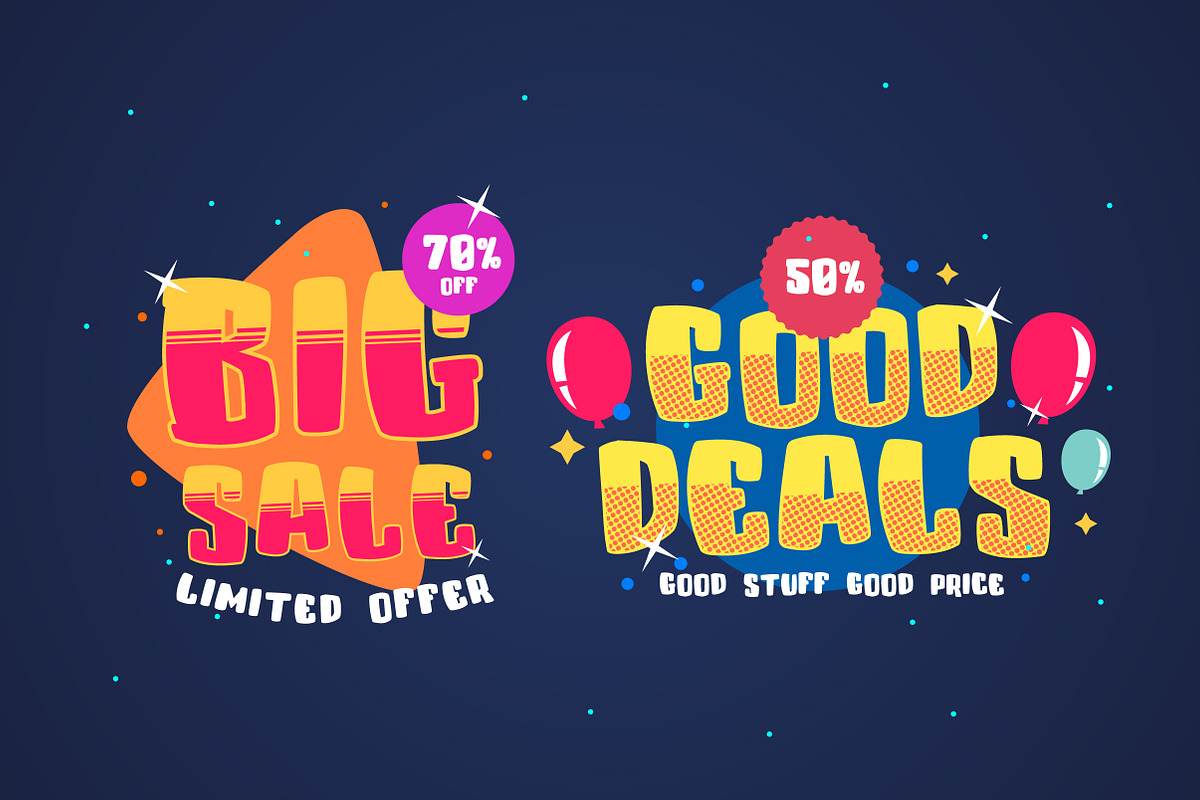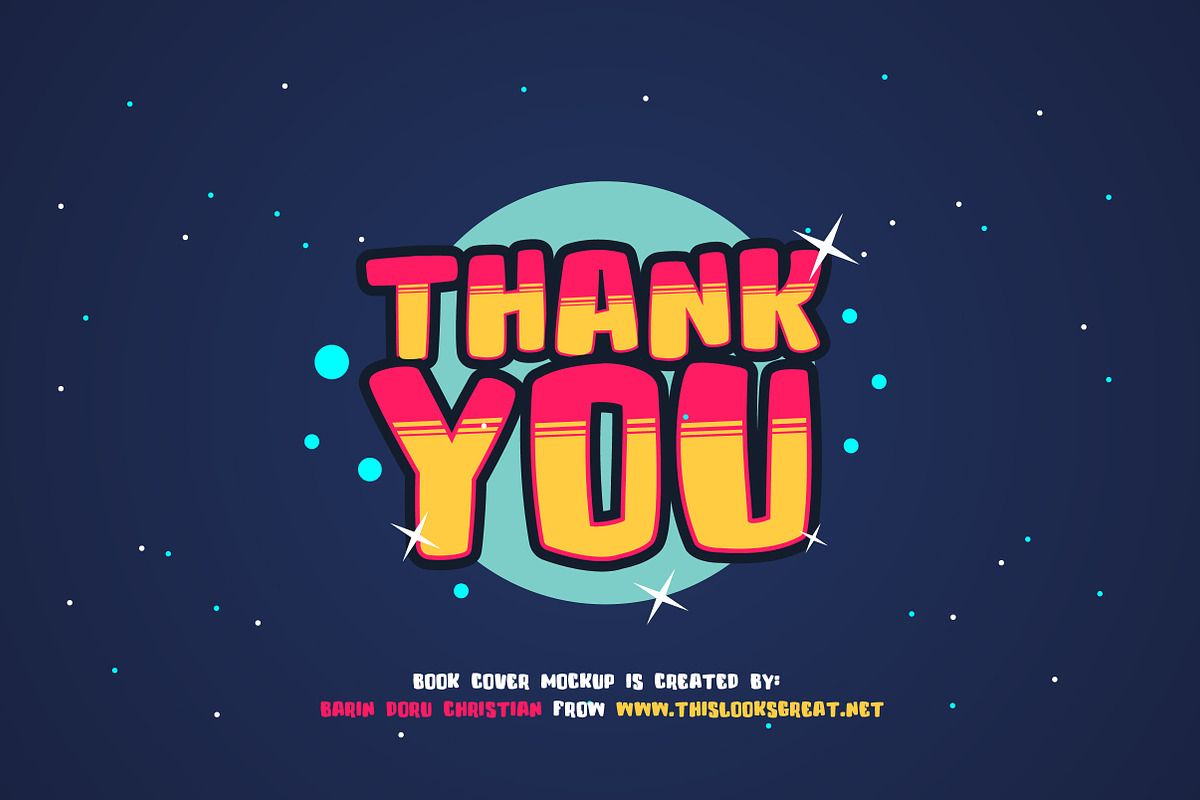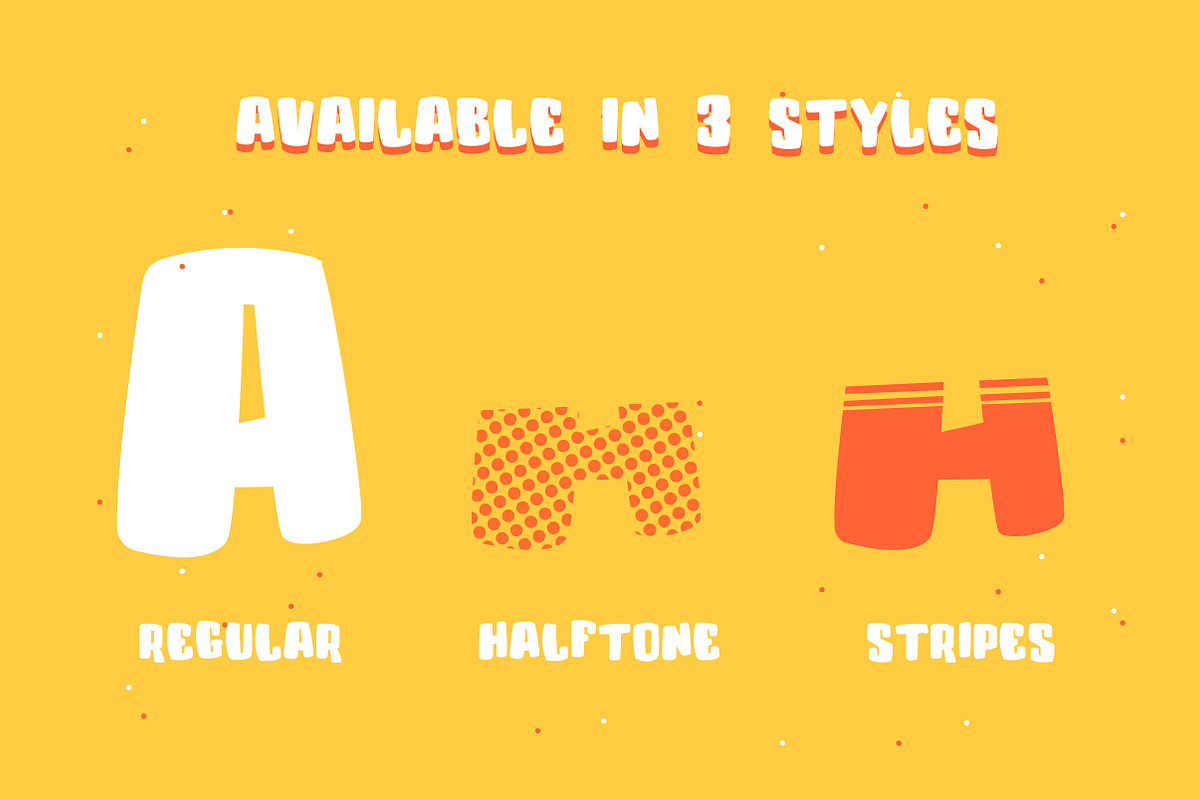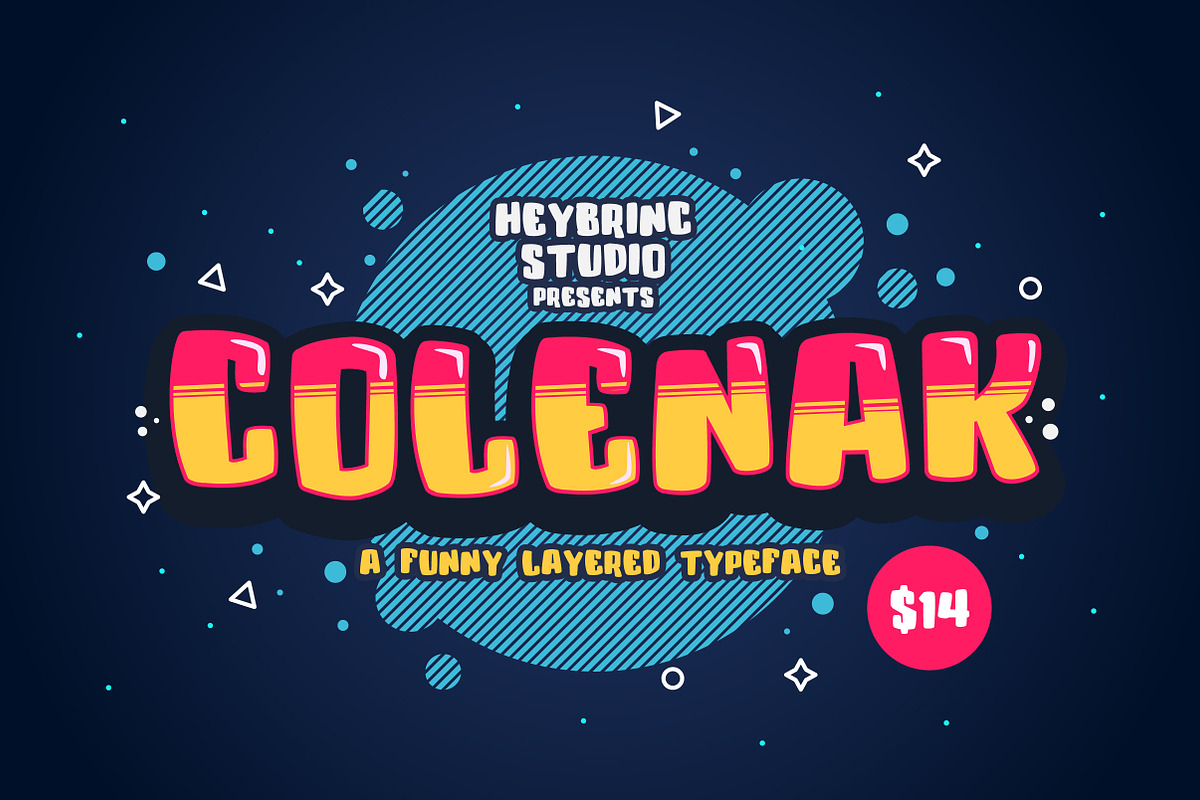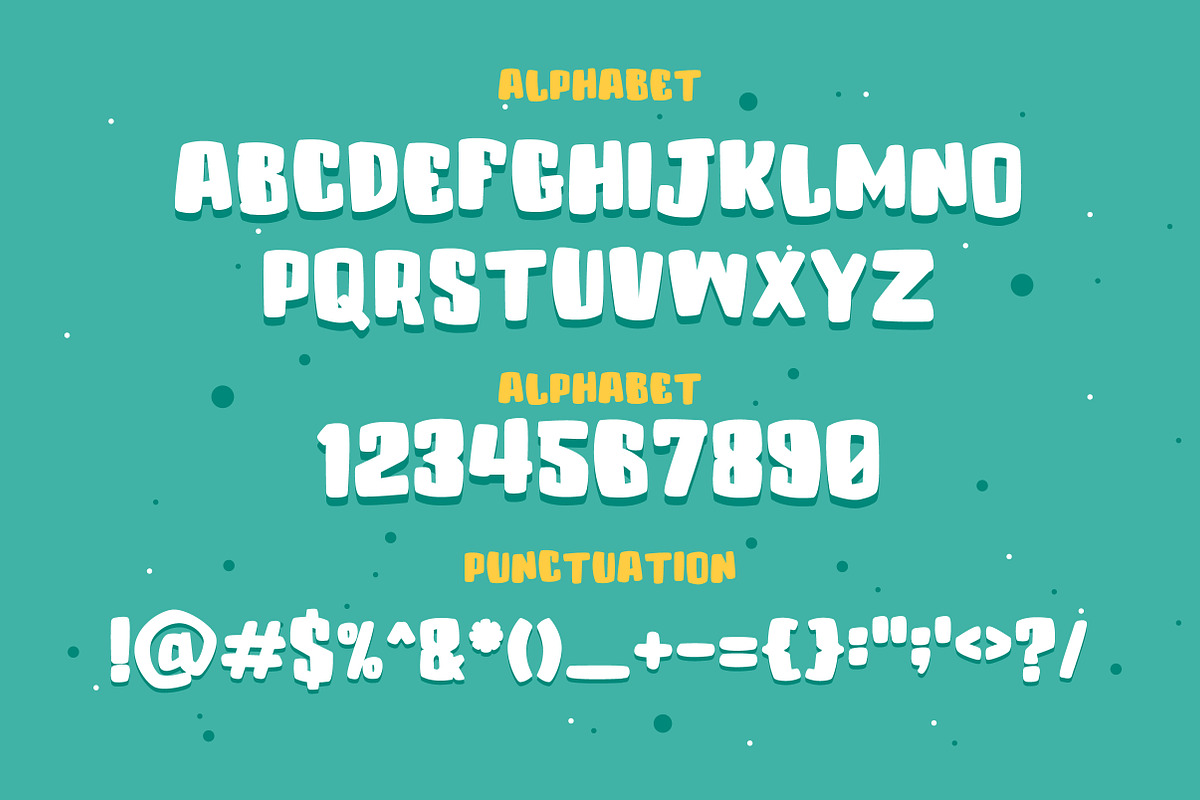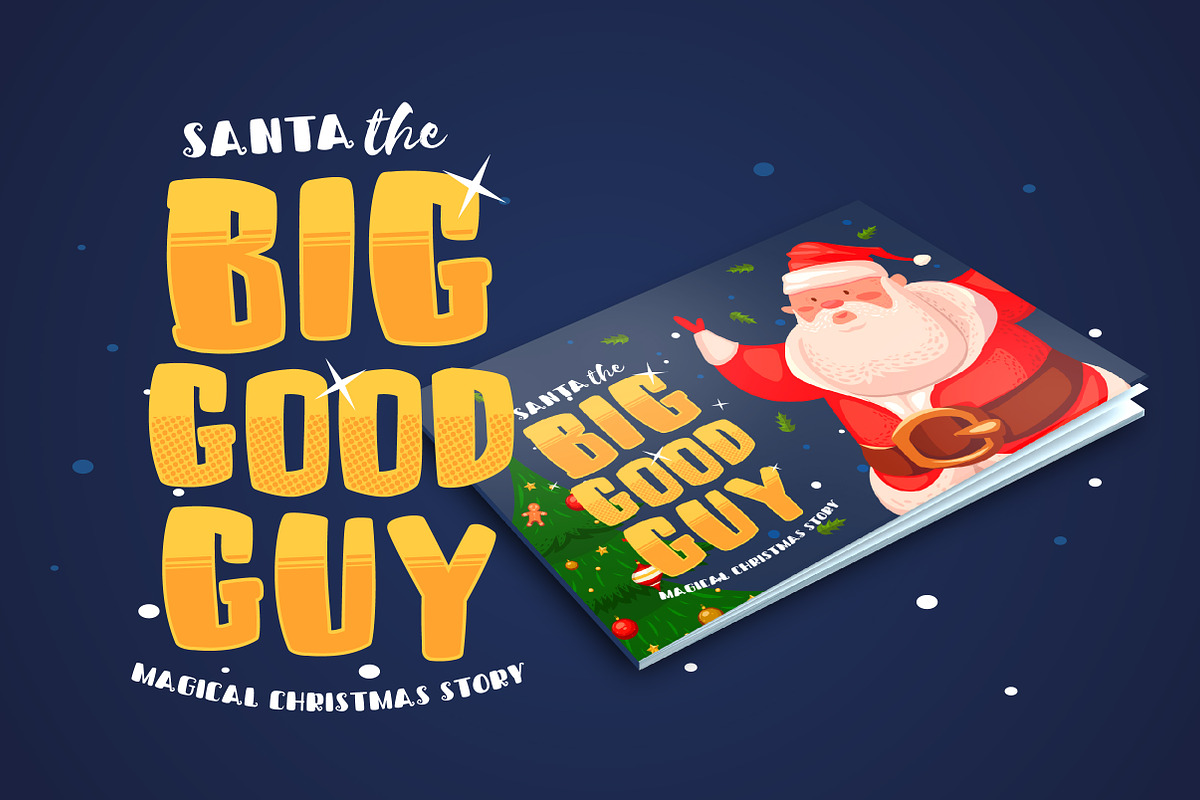
Colenak - Funny Layered Typeface
Introducing a new font from HeyBrinc Studio. Colenak is a funny layered typeface. Inspired by game and cartoon titles. It's suitable for game, cartoon logos and short titles, children books and greeting cards. Buy now and start playing around with Colenak!
- Colenak Regular
- Colenak Halftone Regular
- Colenak Stripes Regular